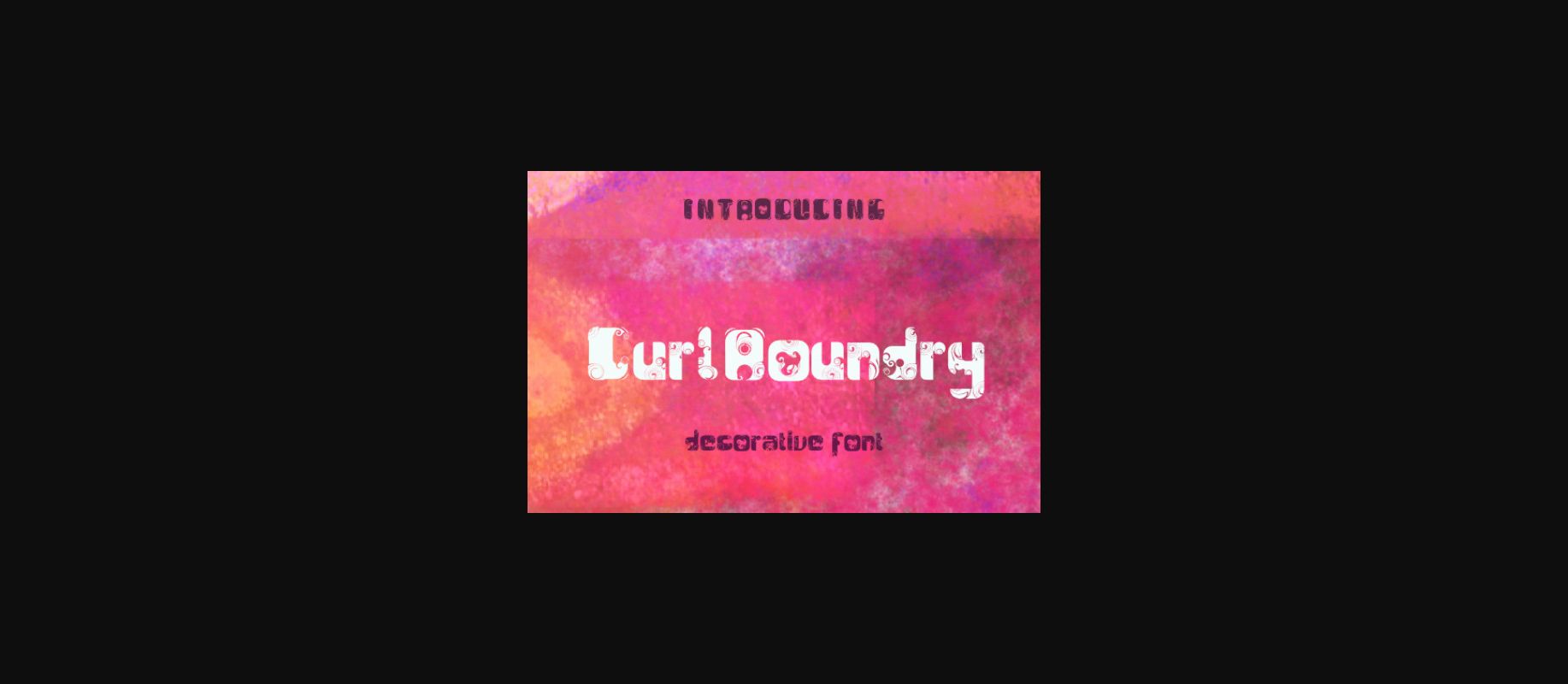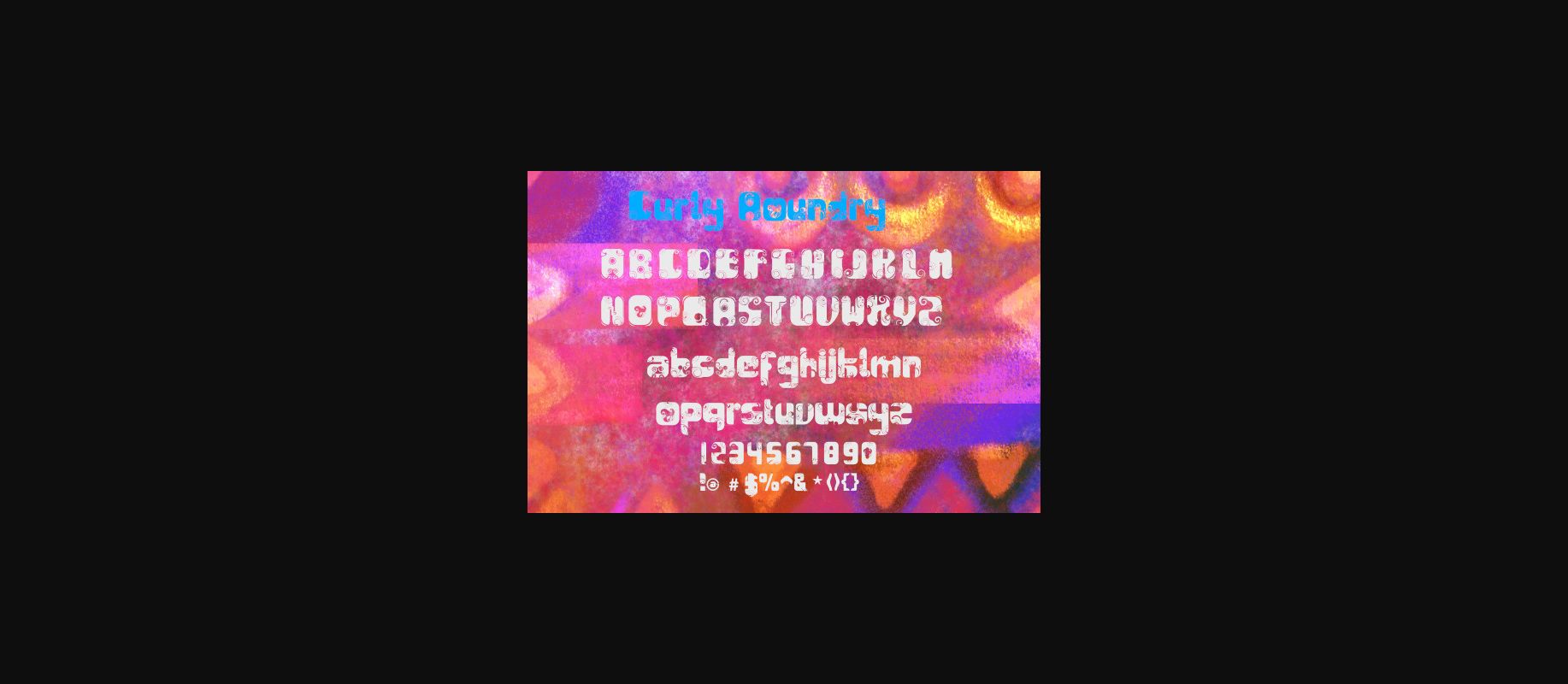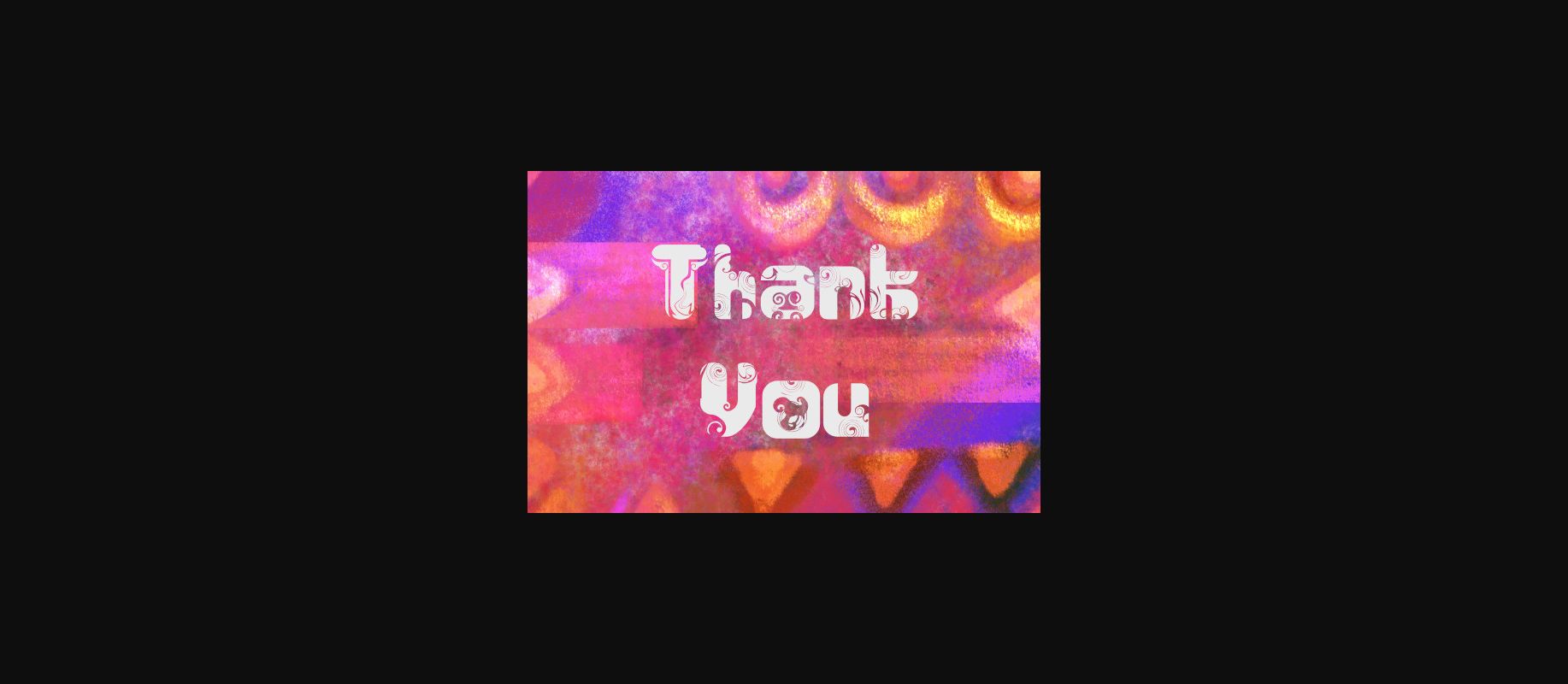
About Curl Roundry Font
Curl Roundry is a nice decorative font with a pretty pattern added to each letter. This font can be used for graphic design, logos, web design, brochures, templates, advertising, printing, posters, or anything that requires a lovely touch!